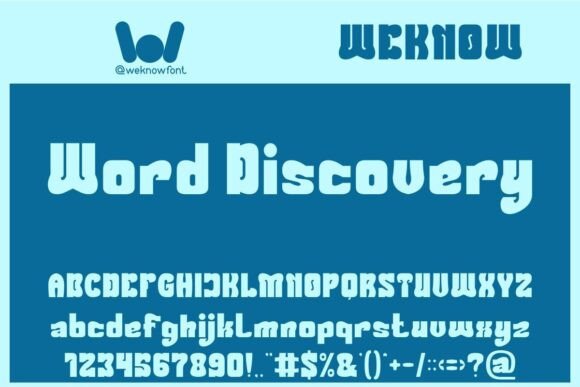
Word Discovery Font: Unleashing Creativity with Eclectic Flair
In the realm of typography, few fonts manage to capture the essence of creativity and playfulness as effectively as the Word Discovery font. This ebullient display font is a masterpiece of design, blending eclectic and artistic elements to create a truly unique visual experience. With its whimsical dance of characters, Word Discovery injects a dose of joy and energy into any project, making it an excellent choice for a wide range of applications.
Characteristics of Word Discovery Font
Word Discovery is characterized by its bumpy texture, which adds a layer of charm and personality to the font. This texture, combined with the font’s eclectic and artistic flair, creates a joyful juxtaposition of playful idleness and wild energy. The result is a font that is both eye-catching and memorable, capable of capturing the attention of audiences and leaving a lasting impression.
- Ebullient Display Font: Word Discovery is designed to make a statement, with a lively and energetic feel that is perfect for headlines, titles, and other display text.
- Eclectic and Artistic Flair: The font’s eclectic mix of characters and artistic flair make it a standout choice for creative projects.
- Bumpy Texture: The bumpy texture adds a tactile quality to the font, giving it a unique and charming personality.
Applications of Word Discovery Font
Word Discovery is a versatile font that can be used in a multitude of applications, from branding and advertising to publishing and digital media. Here are some of the ways you can use Word Discovery to unleash your creativity:
- Branding Elements: Use Word Discovery to create eye-catching logos, corporate identities, and other branding elements that reflect your company’s personality and style.
- Publications: Add a touch of whimsy and creativity to your books, magazines, comics, and other publications with Word Discovery.
- Posters: Translate the font’s vibrancy into posters for music, movies, games, or apparel designs that are sure to grab attention.
- Digital Presence: Use Word Discovery to amp up your digital presence on platforms like YouTube, Instagram, or any website, making it a go-to font for all your creative endeavors.
Using Word Discovery for Branding Elements
When it comes to creating branding elements, a font can make all the difference. Word Discovery is an excellent choice for logos, corporate identities, and other branding elements due to its unique and memorable character. Here are some ways you can use Word Discovery for branding:
- Logo Design: Use Word Discovery to create a logo that reflects your company’s personality and style.
- Corporate Identity: Apply Word Discovery to your corporate identity, including business cards, letterheads, and other marketing materials.
- Advertising: Use Word Discovery in your advertising campaigns to add a touch of creativity and whimsy.
Word Discovery in Publishing
Word Discovery is a great choice for publishing applications, including books, magazines, comics, and more. The font’s playful and energetic feel makes it perfect for:
- Book Covers: Use Word Discovery to create eye-catching book covers that reflect the tone and personality of your book.
- Magazine Titles: Add a touch of creativity to your magazine titles with Word Discovery.
- Comics and Graphic Novels: Use Word Discovery to add a playful and energetic feel to your comics and graphic novels.
Word Discovery in Digital Media
In today’s digital age, a font can make all the difference in creating a strong online presence. Word Discovery is an excellent choice for digital applications, including:
- YouTube: Use Word Discovery to create eye-catching titles and thumbnails for your YouTube videos.
- Instagram: Add a touch of creativity to your Instagram posts and stories with Word Discovery.
- Websites: Use Word Discovery to create a unique and memorable online presence for your website.
Tips and Tricks for Using Word Discovery
Here are some tips and tricks for getting the most out of Word Discovery:
- Experiment with Colors: Word Discovery looks great in a variety of colors, so don’t be afraid to experiment and find the perfect color scheme for your project.
- Mix and Match: Try mixing and matching Word Discovery with other fonts to create a unique and memorable visual experience.
- Pay Attention to Texture: The bumpy texture of Word Discovery is a key part of its charm, so make sure to pay attention to it when using the font.
In conclusion, Word Discovery is a versatile and creative font that is perfect for a wide range of applications. With its eclectic and artistic flair, bumpy texture, and playful energy, Word Discovery is sure to make a statement and leave a lasting impression. Whether you’re looking to create branding elements, publishing materials, or digital content, Word Discovery is an excellent choice.